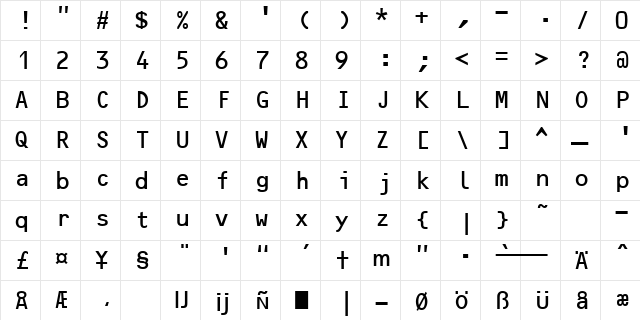
OCRB Regular
Design Context for OCRB Typeface
OCRB takes a measured approach to typography — its balanced proportions and neutral character make it a reliable workhorse for both digital and print work.
Pro Tip: Pair OCRB with a font of contrasting weight or personality to build a more expressive typographic hierarchy.